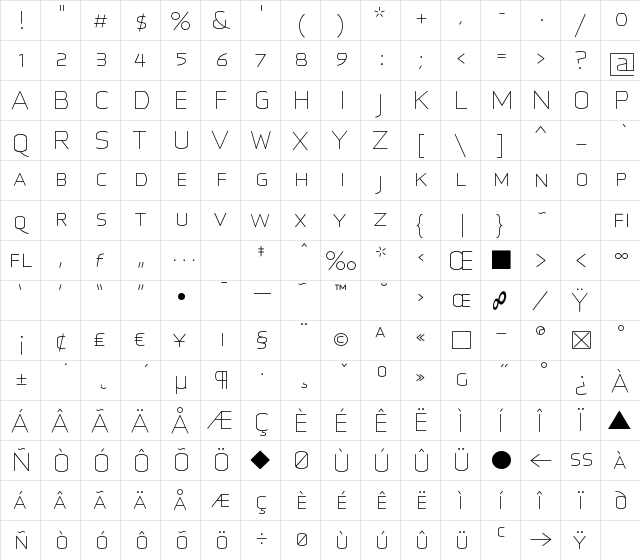
Infinity-C-L Regular
Design Context for Infinity-C-L Typeface
Infinity-C-L takes a measured approach to typography — its balanced proportions and neutral character make it a reliable workhorse for both digital and print work.